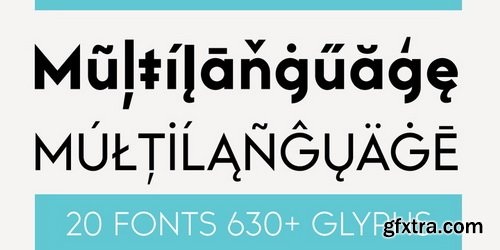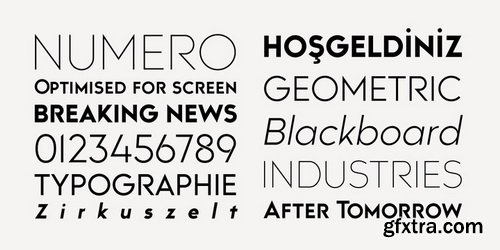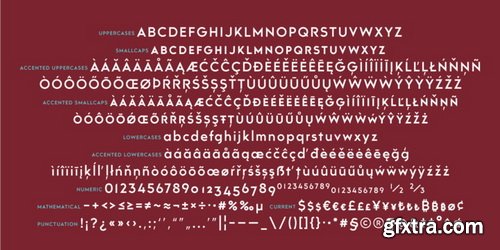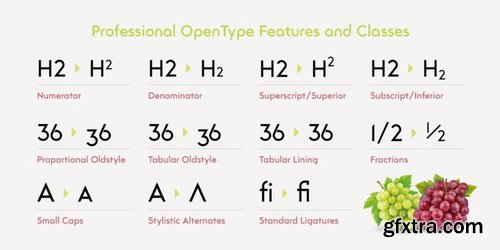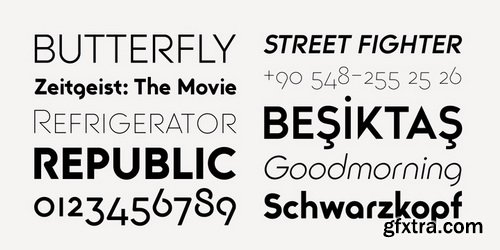
Trakya Sans Font Family
Trakya Sans is a modern sans serif with a geometric touch. Futura, Avant Garde and the like. It has a modern streak which is the result of a harmonization of width and height especially in the lowercase letters to support legibility.Ideally suited for advertising and packaging, editorial and publishing, logos, branding and creative industries, posters and billboards, small text, way-finding and signage as well as web and screen design.Trakya Sans provides advanced typographical support for Latin-based languages. An extended character set, supporting Central, Western and Eastern European languages, rounds up the family.The designation “Trakya Sans 500 Regular” forms the central point. The first figure of the number describes the stroke thickness: 100 Thin to 900 Bold. "Trakya Sans" comes in 5 weights with matching italics plus "Trakya Sans Alt", also 5 weights and italics so a total of 20 styles. The family contains a set of 630+ characters.